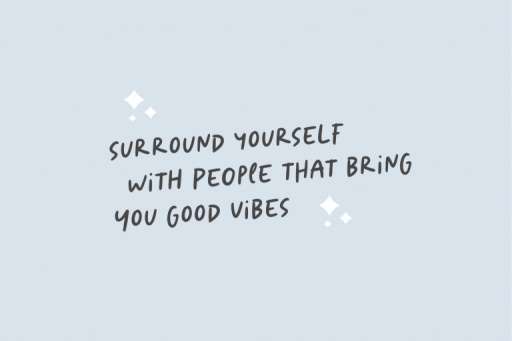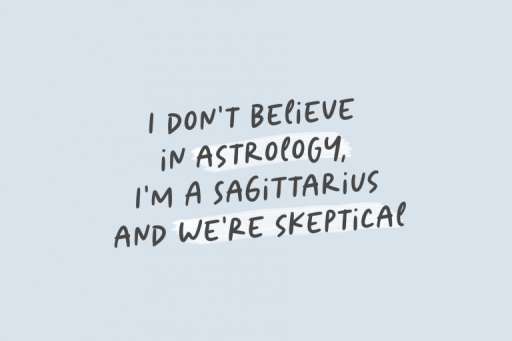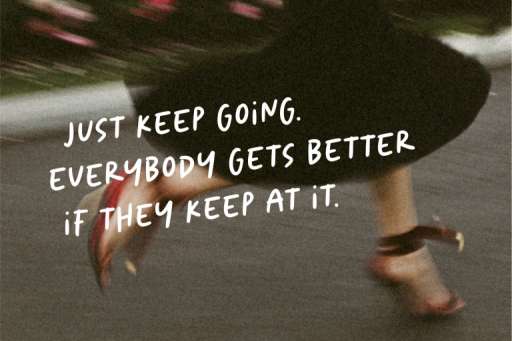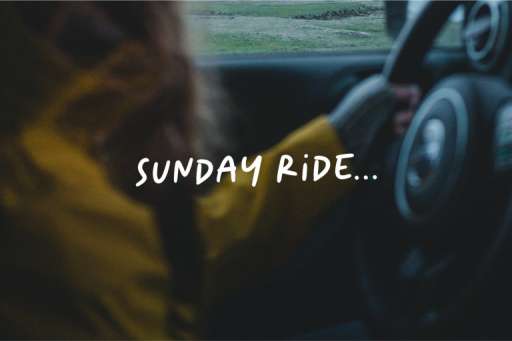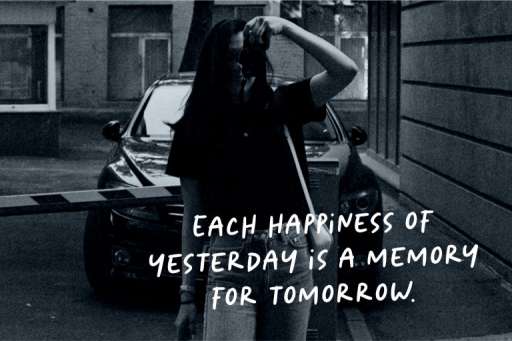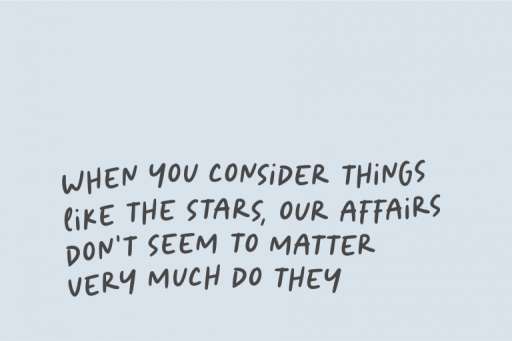
Aesthetic Sage – Marker Handwritten Font from Jimtype Studio
Aesthetic Sage is a handwritten font with a basic character, punctuation, and numbers font set. This font is made with the natural concept of handwriting for more stunning and outstanding. This font is perfect for crafts, digital design, presentations, or making greeting cards, this font has the potential to become your favorite go-to font, no matter the occasion!